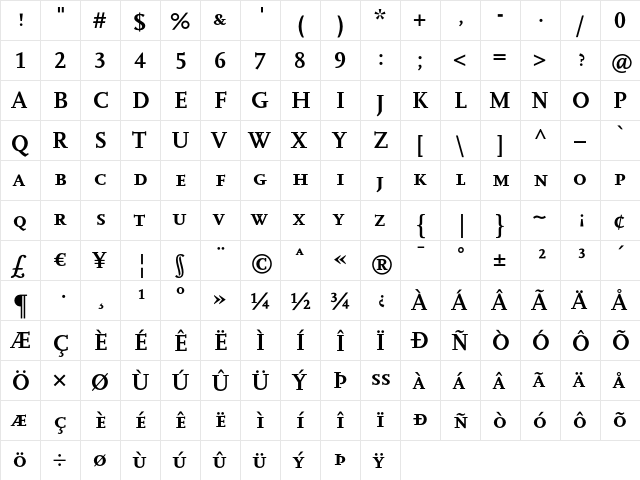
Scala Caps Bold Font Preview
Scala Caps Bold
Scala Caps Bold Font Details
Design Context for Scala Caps Typeface
Scala Caps offers clean, dependable letterforms without strong stylistic allegiance, making it a practical choice for designers who need flexibility. The heavy weight commands attention and anchors typographic hierarchies.
Pro Tip: Use Scala Caps in both headline and body roles to test its range before committing to a single application.